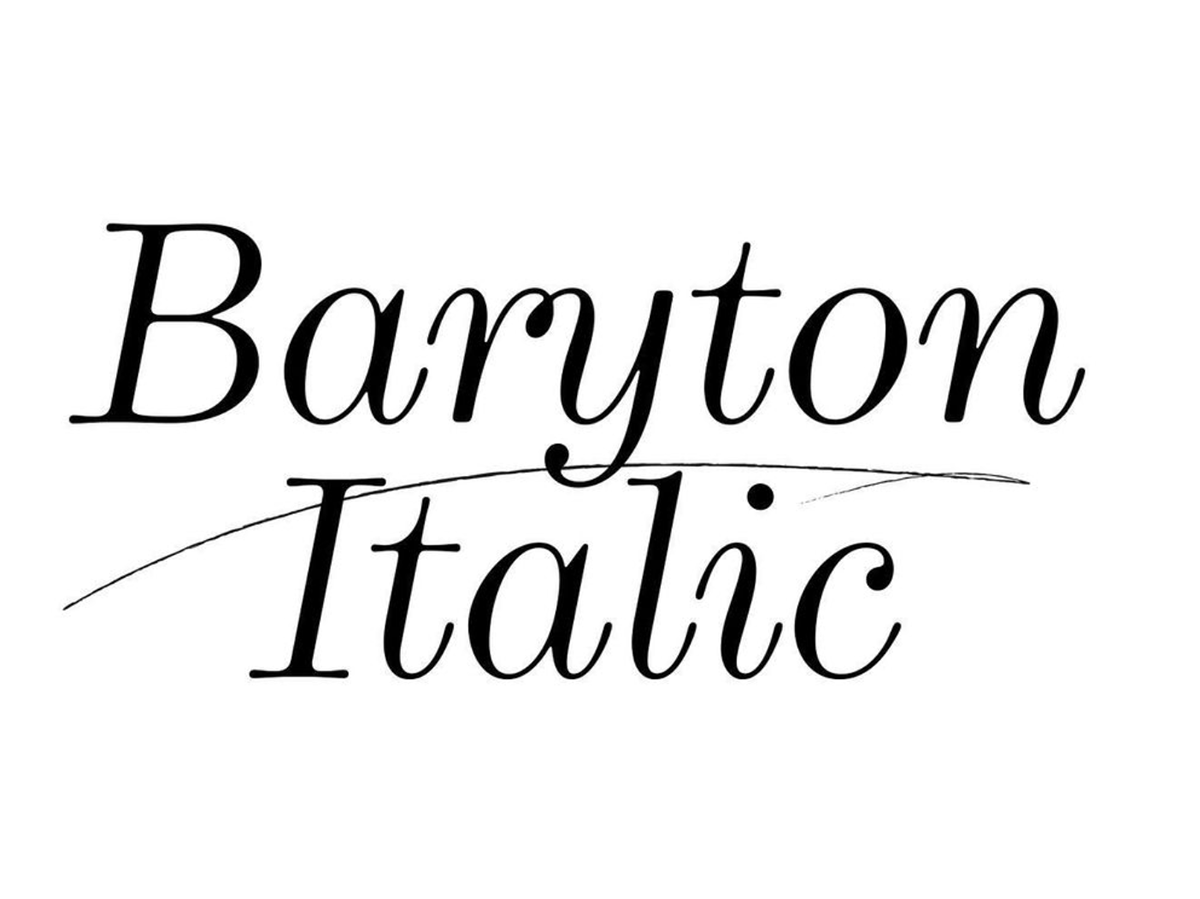
Some new blood, some seasoned crafters: here is a selection of a dozen gems who contribute to shaping today and tomorrow’s type scene.
Hélène Marian | @helene_marian
Trained a graphic designer and a signpainter, the letters of Hélène Marian can be alternatively drawn, painted, or simply typeset. She spans a work that is fresh, monumental, and expressive, and pours this generosity into vivid letters. Hélène is already a seasoned instructor, and workshops are a stout part of her practice. An active collaborator both in the indie zine and in the experimental music scene, she regularly contributes mixtape covers and magazine spreads.
Émilie Vizcano | @emilievizcano | @sen_vz
What makes Vizcano’s work special is the fresh take one can experience on almost any typeface she undertakes. Be it a classical script face or a blocky sans, there’s always a surprising element that clicks right. Make sure you do not miss her Tangerine typeface. Émilie also animates her Twitch channel where she streams about type news, hosts guests, and evokes the reality of freelancing in type design.
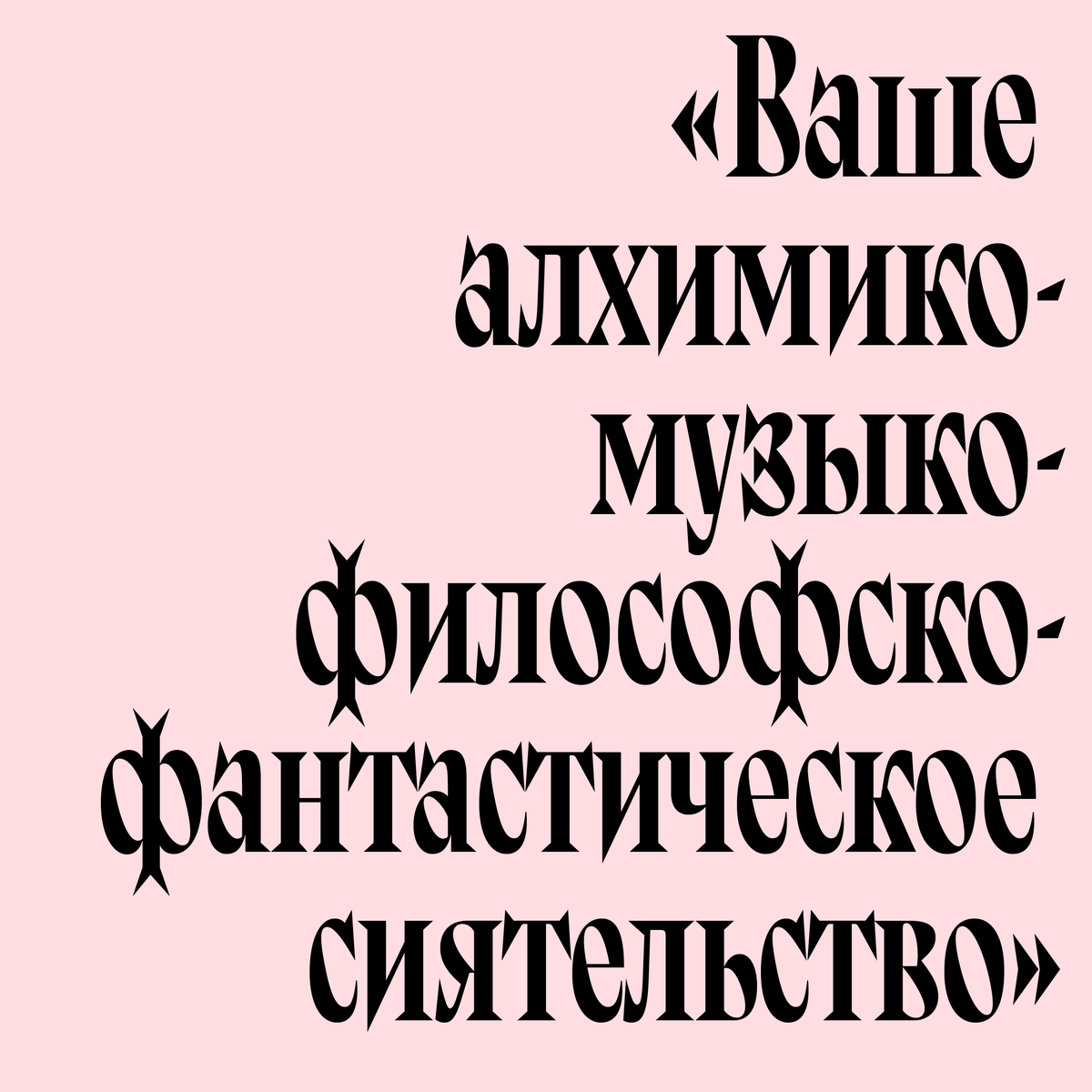
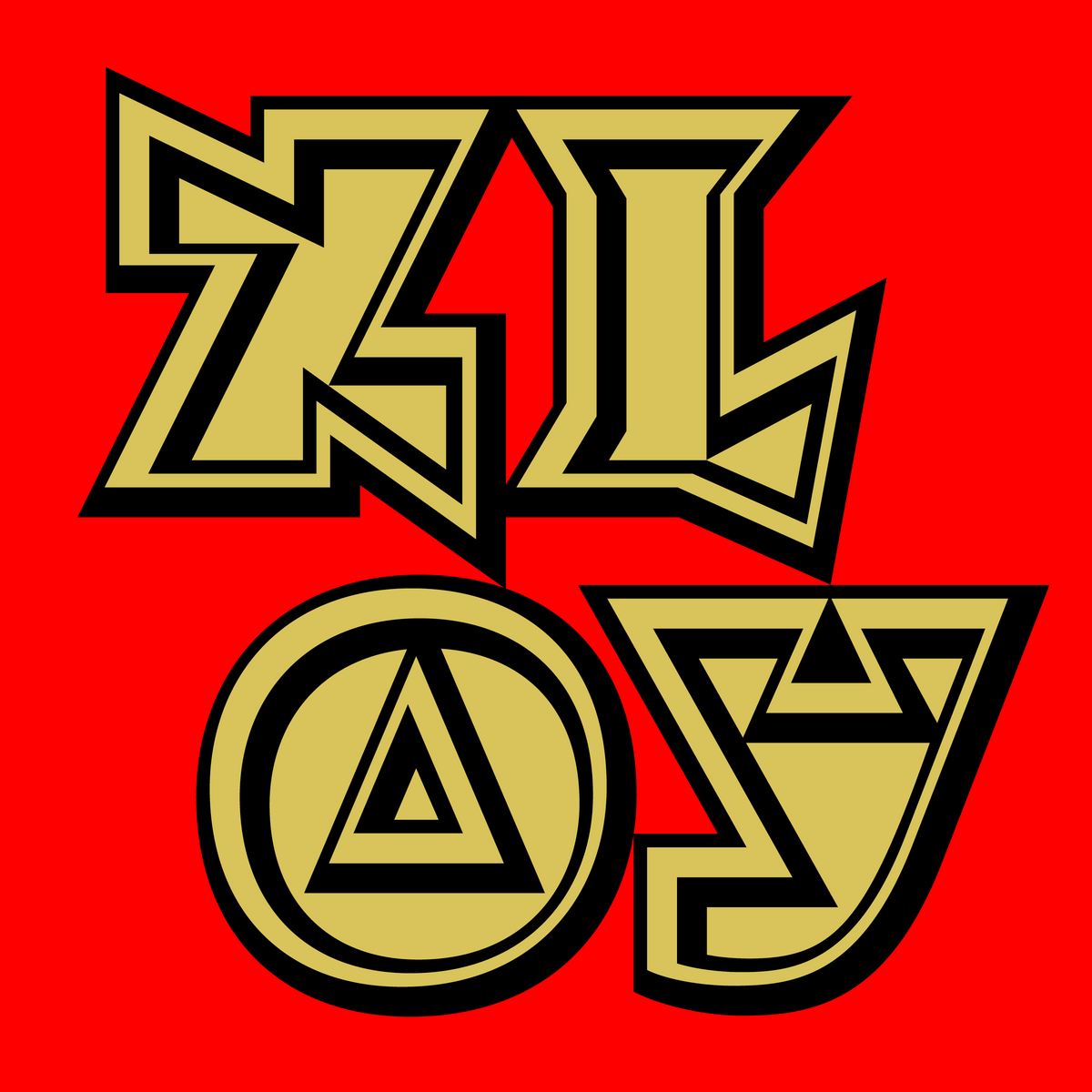
Daria Petrova | @typodaria
Dark and spiky: with her first gothique releases (still WIP), Petrova sets the tone for a consistent body of work. With a notable taste for macabre, the typefaces look buttoned-up and expressive, just like a dramatic theater play. Erratic and unpredictable in a good way: with Petrova it’s quite difficult to know what will come next.
Alaric Garnier | @alaricgarnier
Alaric Garnier contains multitudes. Trained a graphic designer, he completed an apprenticeship in signpainting with Sean Barton in Seattle. Since then, he has worked as a craftsman, a book designer, a graphic designer, a teacher, and of course, a typeface designer. Moreover, Alaric grew a new dimension of his varied curricula: together with Léna Araguas, he co-founded Rotolux Press in 2015, a non-profit publishing house where new typefaces are tested in editorial projects.
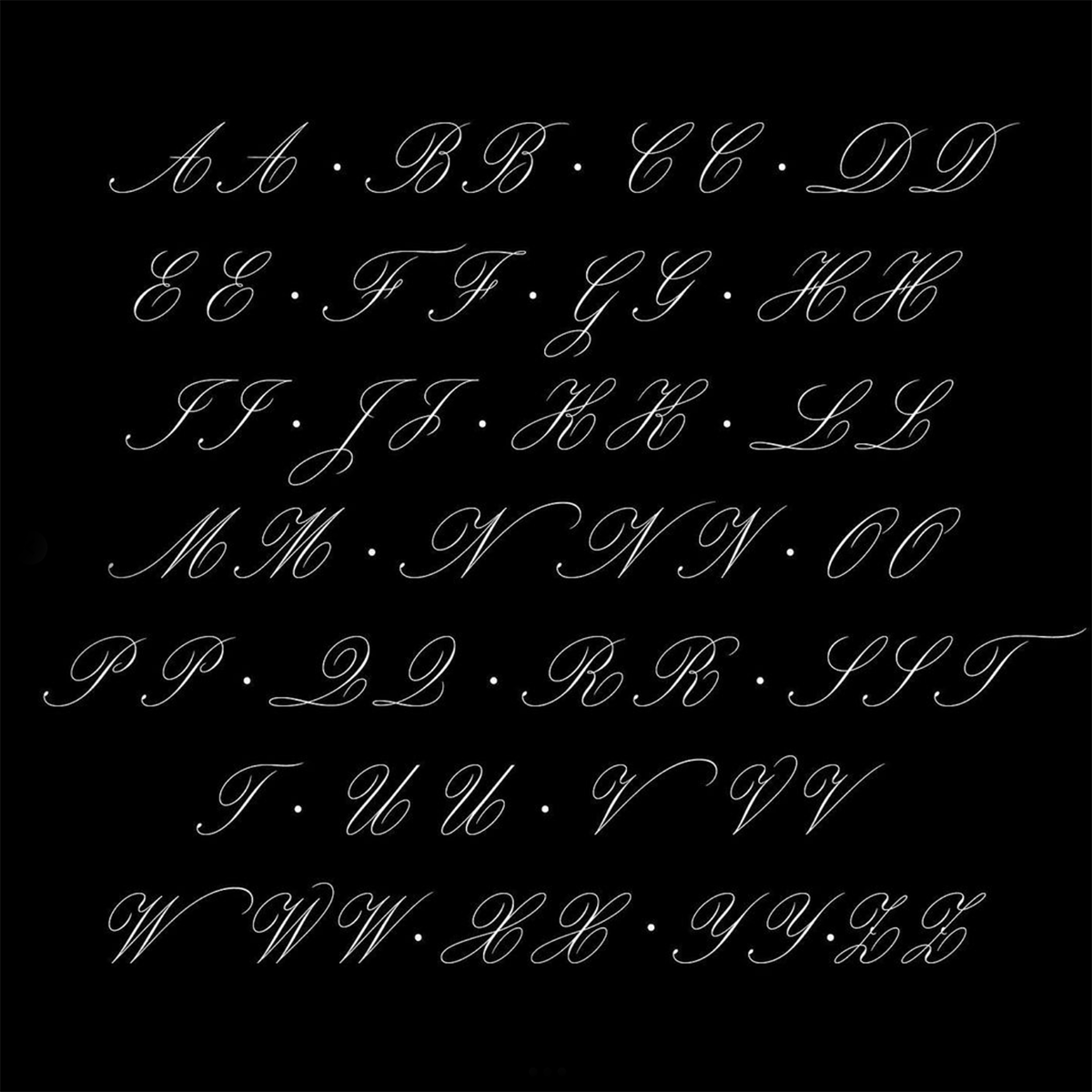
My-Lan Thuong | @mylanthuong
With a taste for accuracy, revivals, and large display types, Thuong shows how specific and tactful type design can be. Although each release gives a new direction for her creations, one can clearly identify her rich and rigorous practice. Definitely a type designer to watch.
Hrvoje Živčić | @hrvoje_zivcic
Lowkey practising typeface design in Zagreb, Croatia, Živčić has already released major families under his name at Typotheque and Production Type, and collaborated with Commercial Type on significant typefaces. The work of Živčić is a subtle arrangement of found lettering inspo and methodical, rigorous digital type design. Informed, researched, and thought after pieces of design are definitely his signature.
Hugues Gentile
Hugues Gentile’s interests span over early American serif face to Python programming, with a touch of French script type in between. Before turning 30, he had already published a major font superfamily, commissioned by Google Fonts, and has contributed several extensions to the font editing software RoboFont. It is difficult to connect all the dots of his type design practice, as he explored vast, intertwined fields: from Blackletter type to French Script, from Indic to Cyrillic. The work of Gentile is polymorphic, and one should expect it to go only deeper.
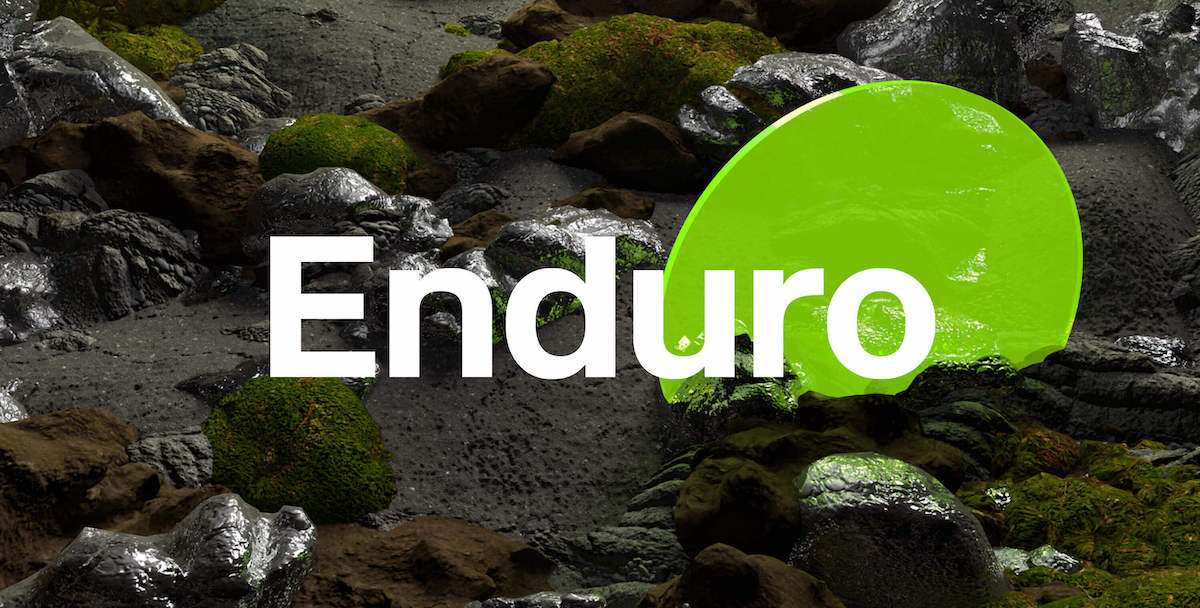
Emmanuel Besse | @largetimes
A co-founder of design studio Large, Besse places type at the center of his practice, albeit not using it systematically. As a typeface designer, he often explores vernacular and crude shapes that he later distillates. His superfamily work Enduro is good proof of that process.
Sandra Morales
Vernacular inscriptions, billboards, and signpainting that surround her in her native city of Puebla, Mexico: that’s what is at the heart of Morales’ creative inspiration. The young designer is still studying, but her commitment to social topics is strong, and we like to think that it prefigures her stance as a professional. And we’re not the only ones keeping an eye on Morales: in 2021, she has been the recipient of the Malee Scholarship.
Fanny Hamelin | @fanny.hmln
With already two commercial releases, Hamelin shows a specific art direction: her typefaces are researched and rooted in history. However, the finishing touches feel fresh and contemporary, whether it is for her Garamond-inspired Savon, or the Scotch-style Selva. Even the super displayish Giana has this Euro finish that gives depth and thoughtfulness to an otherwise energetic face.
Fátima Lázaro | @fatimalazaro___
A Mexico native, Lázaro mixes influences in a very personal way to pull off singular designs. Her recently released Cardone is a good manifestation of her approach: open, generous, and committed.
- Cardone
- Feral